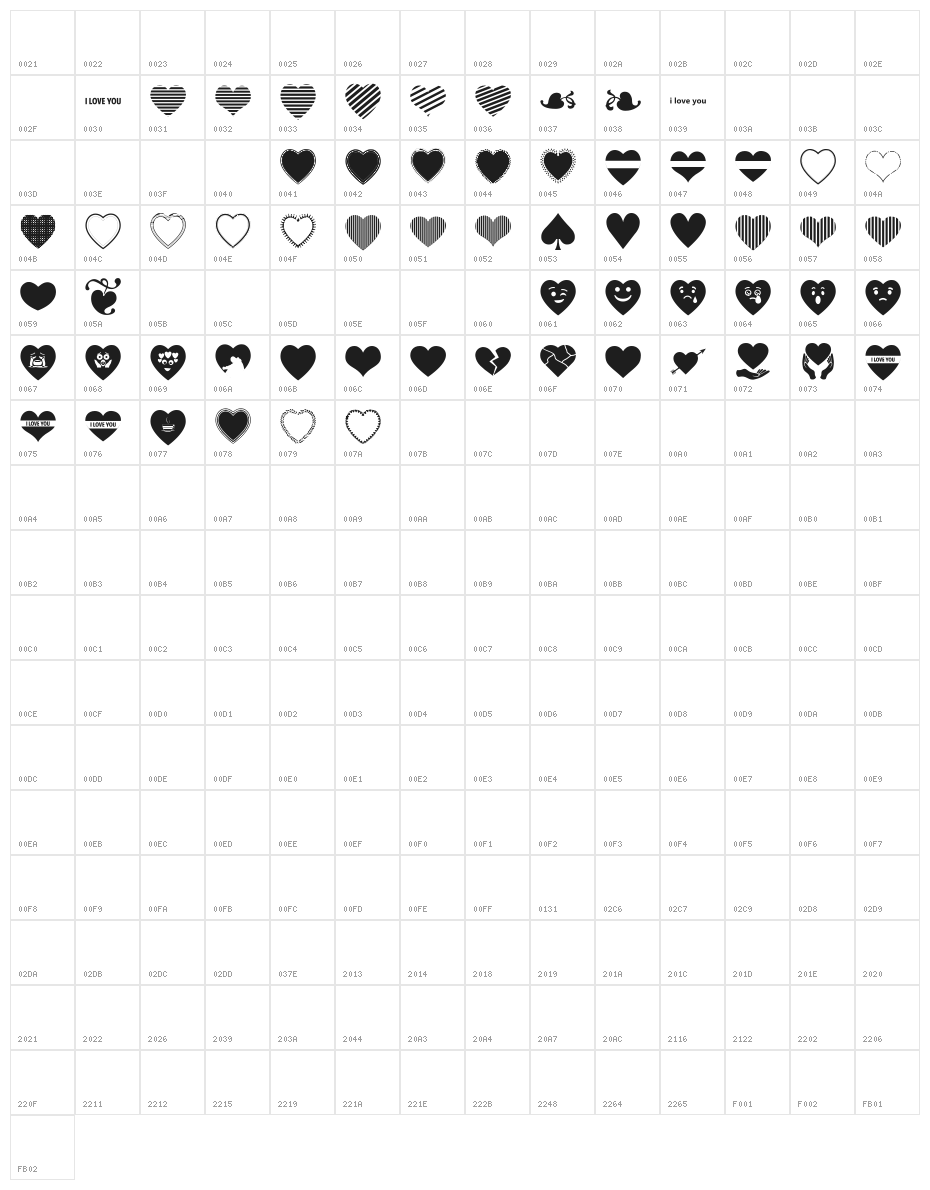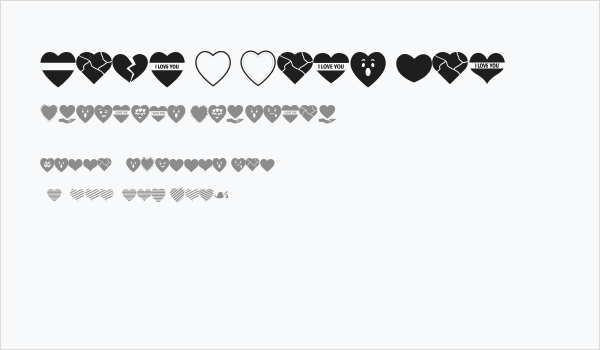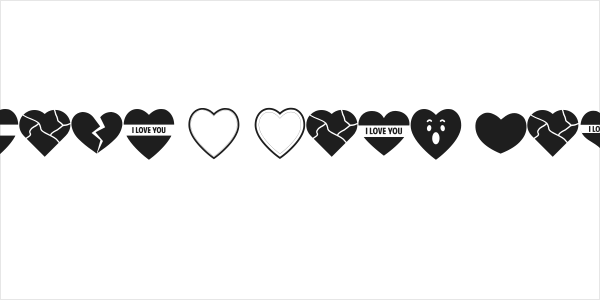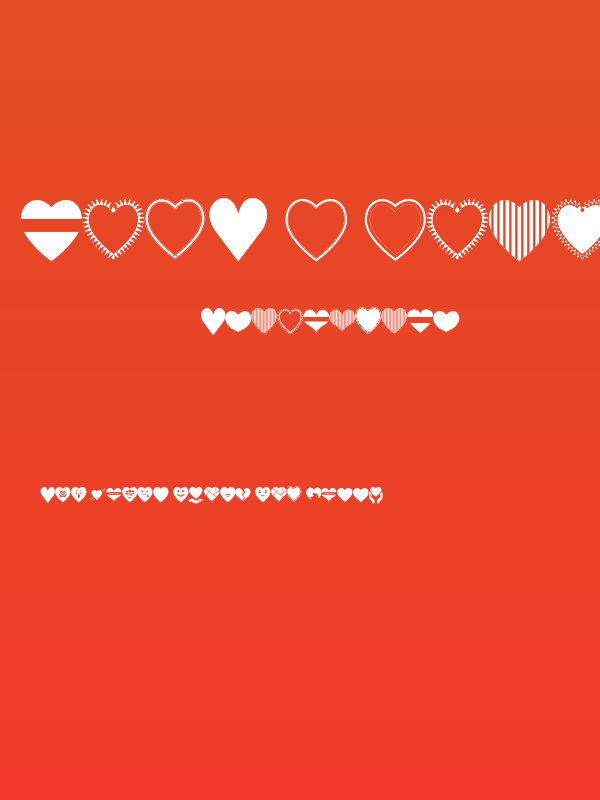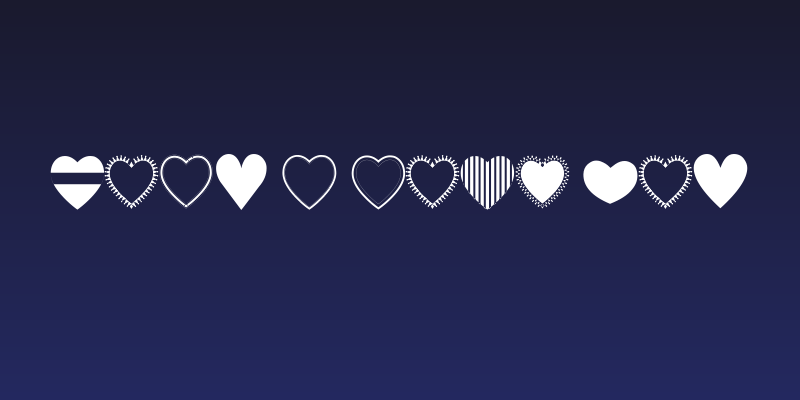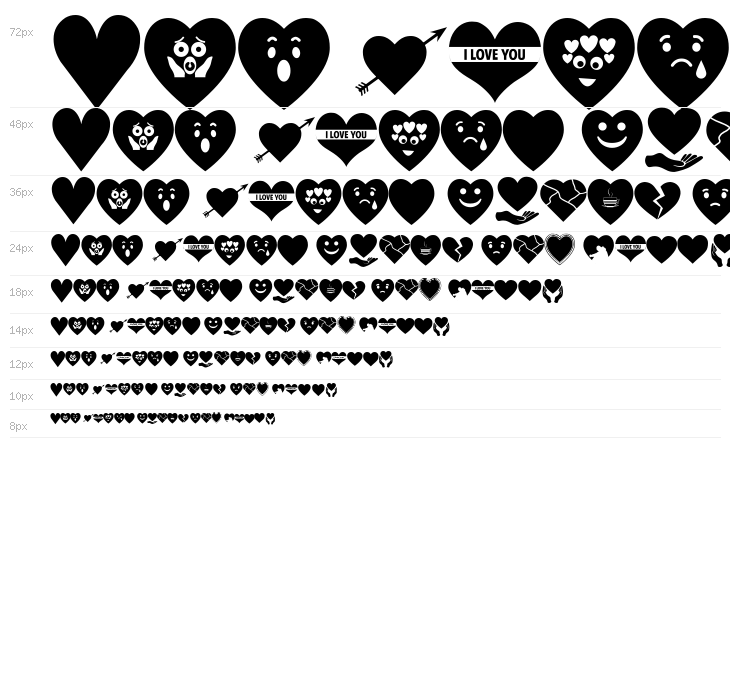
Font I Love You Font
Font I Love You Description
This decorative font is a playful and romantic collection of heart-themed symbols and icons. Each character is uniquely designed with various heart shapes, patterns, and emotive expressions. The font includes hearts with different textures, such as stripes, dots, and solid fills, as well as hearts combined with other symbols like arrows and hands. Some hearts contain facial expressions, adding a whimsical touch. The font also features text elements like 'I LOVE YOU' integrated into the heart designs. This collection is perfect for adding a touch of love and creativity to any project.
| Overall Style | Playful and Romantic |
| Use Case | Logos, Headlines, Decorative elements |
| Proposed Projects | Ideal for Valentine's Day cards, wedding invitations, romantic social media posts, and love-themed graphic designs. |